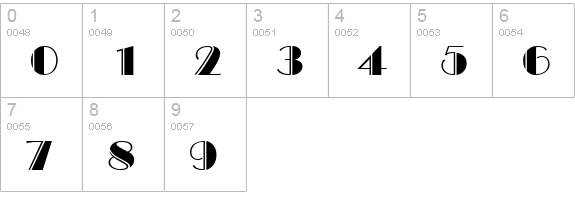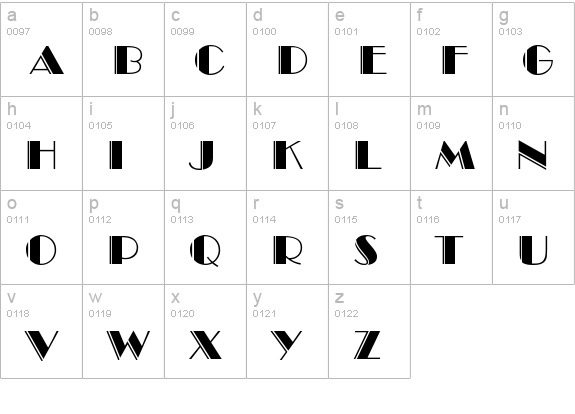
Invite Engraved SF Font Details
Invite Engraved SF is a stunning and elegant font that exudes sophistication and class. Its intricate engravings and delicate curves make it a perfect choice for formal invitations, high-end branding, and luxurious designs. This font is meticulously crafted to capture the essence of timeless beauty and refined aesthetics. Invite Engraved SF is a versatile font that can be used in a variety of design projects, from wedding invitations and event posters to logo designs and product packaging. Its clean lines and balanced proportions ensure legibility while adding a touch of elegance to any composition. One of the best things about Invite Engraved SF is that it is available for free download at FontsMarket.com. This means that you can easily access and use this exquisite font without any cost. Whether you are a professional designer or a DIY enthusiast, this font provides you with the opportunity to elevate your designs without breaking the bank. With its impeccable craftsmanship and timeless appeal, Invite Engraved SF is a must-have font for anyone looking to add a touch of sophistication to their creative projects. Download it for free at FontsMarket.com and unlock the potential to create stunning designs that leave a lasting impression.